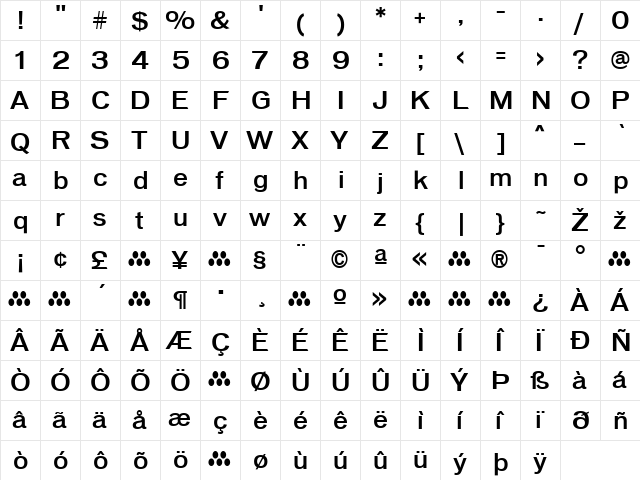
Vonnes Regular
Regular · \(c\) The Font Bureau, Inc  ·
Year 1997
Foundry \(c\) The Font Bureau, Inc
Vonnes Regular
Foundry\(c\) The Font Bureau, Inc
Year1997
Design Context for Vonnes Typeface
Vonnes offers clean, dependable letterforms without strong stylistic allegiance, making it a practical choice for designers who need flexibility.